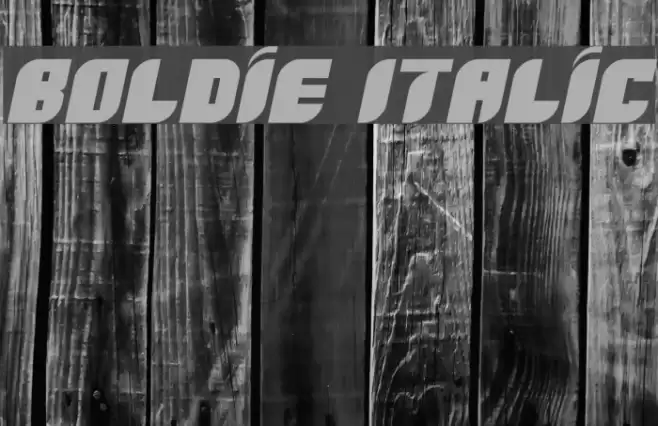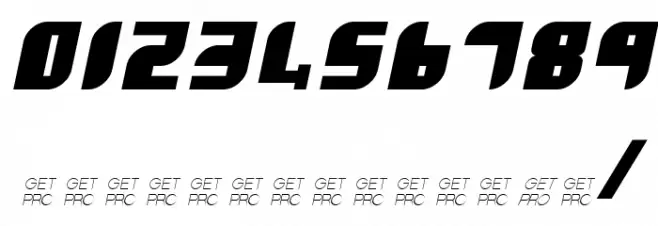
Boldie Italic Font
Boldie Italic Description
This font features a bold and italicized style with a modern and dynamic appearance. The characters are thick and slightly slanted, giving a sense of movement and energy. The uppercase letters are robust and commanding, while the lowercase letters maintain the same boldness with a slightly more compact form. The numbers are consistent with the overall style, ensuring uniformity across different uses. The special characters are designed to match the bold and italic nature, making them stand out effectively. This font is ideal for projects that require a strong and impactful visual presence.
A bold, italicized font with a modern and dynamic style from Uncategorized fonts.